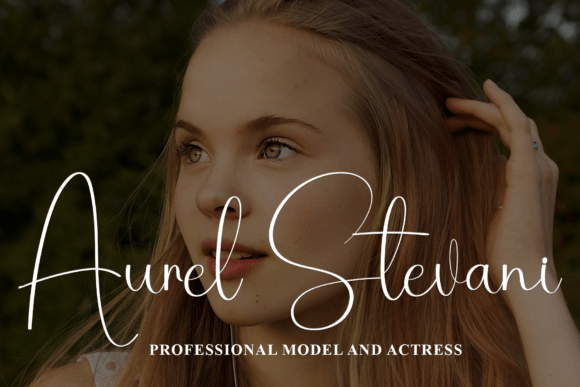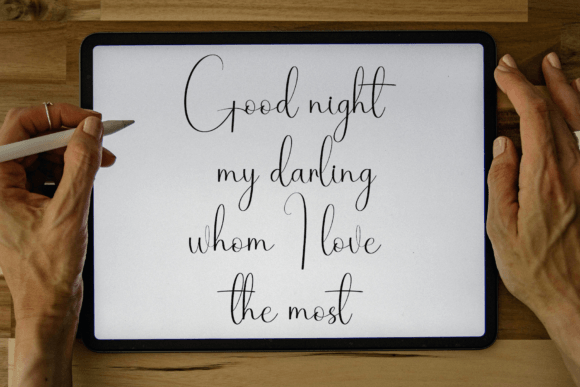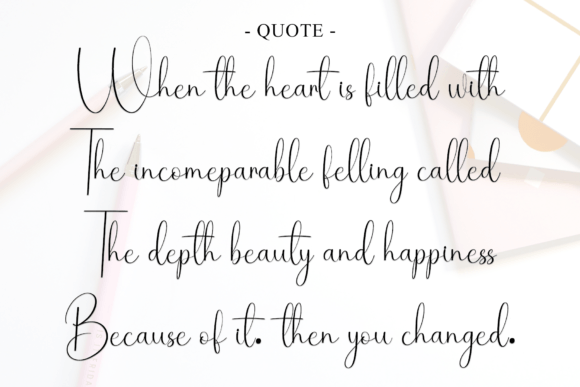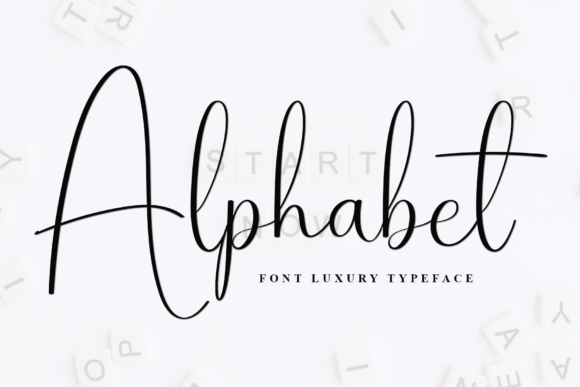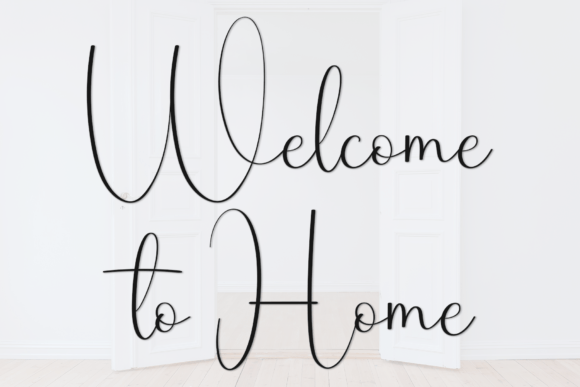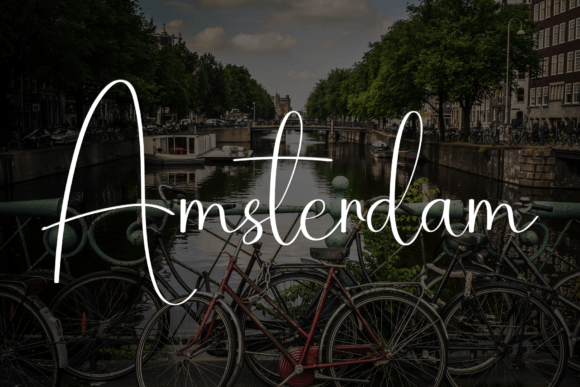
The Magic of Birthday Kamala Font: Elevate Your Holiday Designs
It’s that time of the year again – the holiday season is just around the corner, and as designers, we’re on the lookout for that perfect font to make our projects shine. I still remember the year I spent hours scouring the internet for a festive font to use on a client’s Christmas card project, only to settle for a mediocre one that didn’t quite capture the magic of the season. Fast forward to today, and I’m thrilled to share with you a fantastic find – the Birthday Kamala Font, a decorative typeface that’s sure to add a touch of enchantment to your holiday designs.
A Festive Font to Make Your Designs Merry and Bright
Birthday Kamala Font is a festive and merry typeface that captures the spirit of the holiday season. With its decorative elements and whimsical flair, it’s perfect for greeting cards, gift tags, and holiday-themed projects. This font brings a cheerful and nostalgic ambiance to your words, making it an excellent choice for designers, crafters, and creative hobbyists.
What I Love About Birthday Kamala Font
- ✅ Decorative elements that add a touch of magic to your designs
- 🎉 Whimsical flair that’s perfect for holiday-themed projects
- 📚 Versatile and suitable for various design applications, from greeting cards to gift tags
While Birthday Kamala Font is an excellent choice for holiday designs, there are a few quirks to consider:
- 🤔 Limited use outside of holiday projects – this font is specifically designed for festive designs, so it might not be the best choice for other projects
The Story Behind Birthday Kamala Font
Birthday Kamala Font was designed by a team of creatives who wanted to capture the magic of the holiday season in a typeface. Inspired by traditional holiday decorations and the joy of festive celebrations, they crafted a font that’s both decorative and whimsical. The result is a font that’s sure to add a touch of enchantment to your holiday designs.
| What is Birthday Kamala Font? | Birthday Kamala Font is a festive and merry typeface designed specifically for holiday-themed projects. |